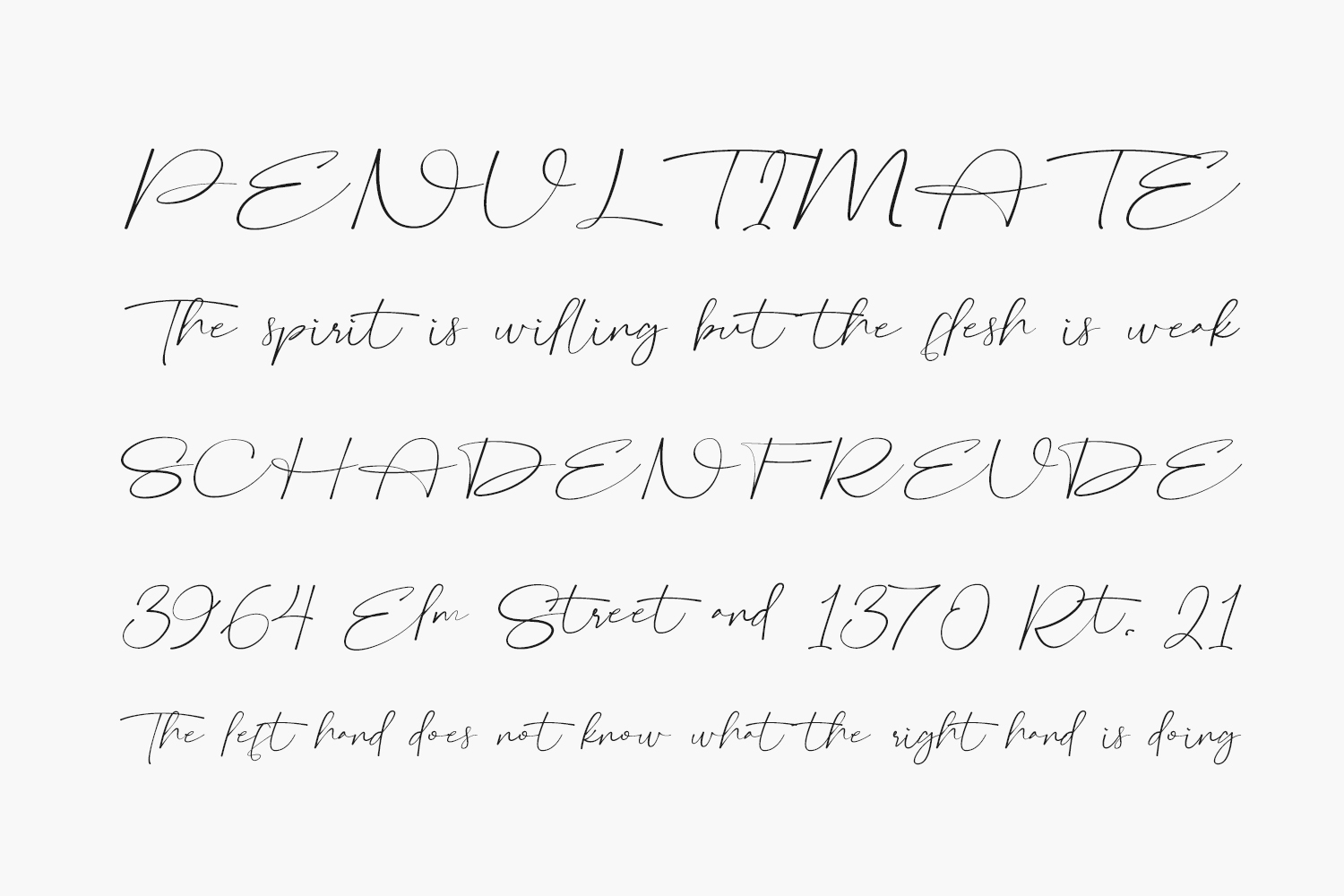
Ettlora Free Font is a high-quality script font featuring its distinctive signature line, and is ideal for a wide range of applications such as invitation cards, business cards, books, social media, and more. Unlock your creative potential with Ettlora. Ettlora Free Font is free for personal use only. Please purchase the full version for commercial use.
Designed by Jadatype